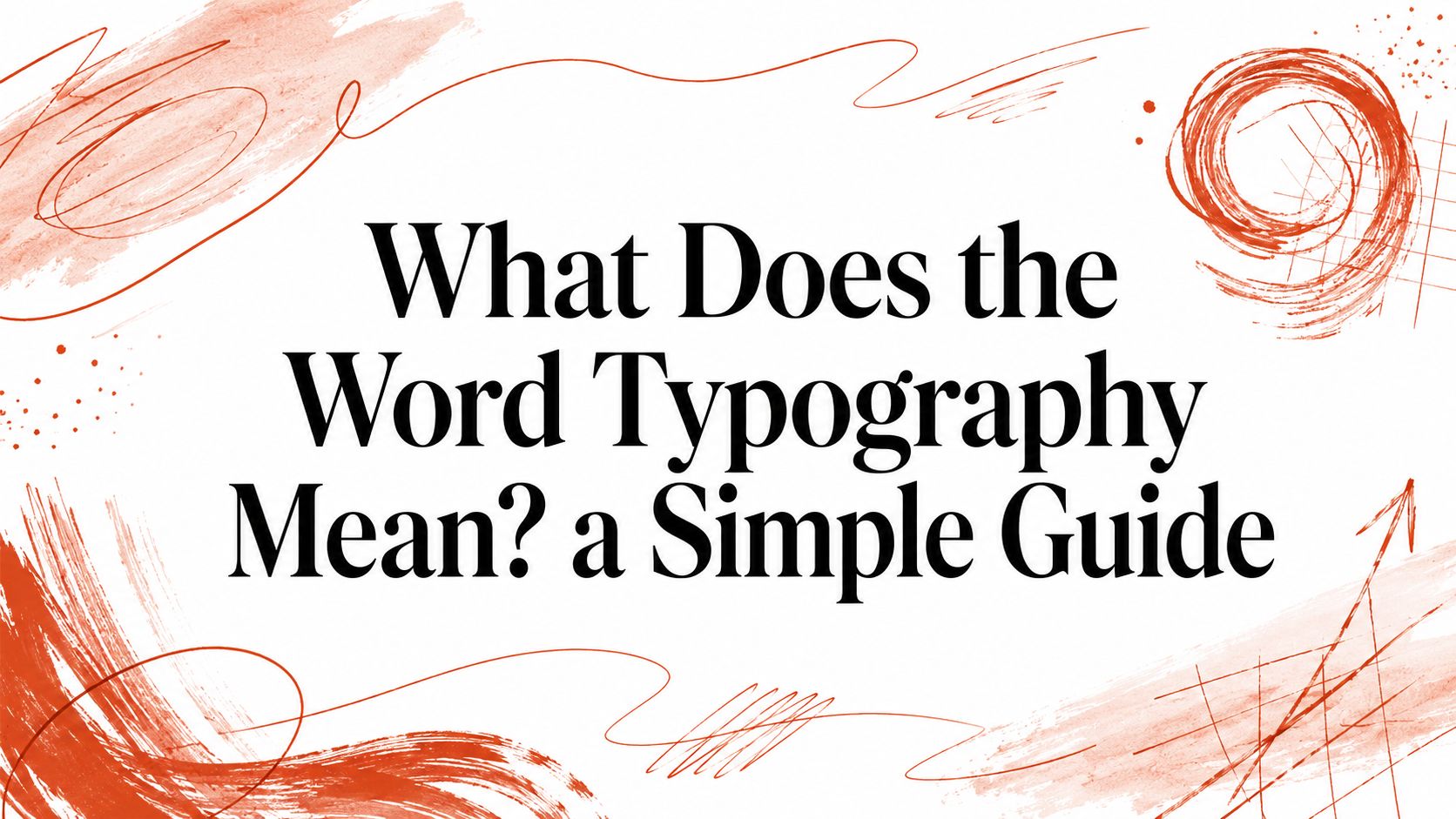
Typography is the art and technique of arranging type to make written language legible, readable, and visually engaging, covering everything from letterform selection to full-page composition. In 2026, that definition applies as much to websites, apps, and brand systems as it once did to letterpress.
So what does the word typography mean when a design team discusses a typeface, a CSS rule, a mobile interface, or a font license? The answer is broader than “choosing attractive letters.” Typography is a system of decisions about how written language looks, behaves, and reaches readers. It connects visual form with reading effort, brand expression, technical delivery, accessibility, and legal permission.
That broader meaning can create confusion. A designer may use “font” and “typeface” interchangeably, a developer may treat typography as a collection of CSS properties, and a compliance lead may focus on whether a file can legally appear on a public website. Each person is looking at one part of the same discipline.
The Short Answer and Where the Word Comes From
The direct answer is simple: typography is the art and process of designing, selecting, arranging, and printing or displaying type. It includes the appearance of letterforms, the spaces between them, the organization of lines and paragraphs, and the composition of text across a page or screen. Britannica's definition of typography describes the field as involving both letterform selection and the arrangement of type into words, sentences, and page blocks.
The word itself has an older and more physical history. Typography comes from Greek roots, typos, meaning “impression,” “mark,” or “figure,” and -graphia, meaning “writing.” In English, the term is attested from the 1640s for the art of composing types and printing from them, and by the 1690s it referred to the action or process of printing from types. The word's etymology shows that typography first named a printing practice before expanding into the design discipline used today.
That history explains why dictionaries can sound narrower than contemporary design conversations. In its earliest English use, typography concerned the mechanics of arranging physical type and producing printed matter. Today, the same idea includes the visual structure of a website, the behavior of text in an app, a brand's type hierarchy, and the way a browser loads a font through CSS @font-face.
Why the meaning expanded
Typography grew as the medium of written communication changed. Ink and paper required decisions about metal sorts, ink, margins, and page composition. Screens added responsive sizing, rendering behavior, fallback systems, loading states, and device variation.
The term also widened because typography affects more than decoration. Typeface choice, spacing, line length, contrast, and layout can influence legibility and the effort required to process text, as the evidence summarized by Britannica's typography overview makes clear. A typography decision can therefore belong to a visual designer, an interface engineer, an accessibility reviewer, and a licensing specialist at the same time.
A useful working definition is this: typography is the complete system that turns written language into a readable and intentional visual experience. The system begins with letterforms, then extends through metrics, composition, digital implementation, accessibility checks, and permission to use the underlying files.
What Typography Actually Includes Beyond the Dictionary
A dictionary definition gives you the category. A working team needs the inventory. Typography includes the visible type resource and the rules that control how that resource behaves in a composition or interface.
Start with the typeface. A typeface is the designed visual system of characters, including their proportions, stroke treatment, terminals, spacing logic, and overall personality. A font is the usable file or instance that delivers those characters in a particular style, weight, or format. A helpful analogy is that the typeface is a blueprint, while the font is a finished brick made from that blueprint.
That distinction matters in design hand-offs and licensing conversations. A designer may specify a family and weight, while an engineer implements a particular file, and a compliance lead verifies whether that file can be embedded, served, or redistributed. Typography is the arrangement system that uses the resource. It isn't only the resource itself.
The visible design system
A complete typographic system may include:
- Families and styles: Serif, sans-serif, monospace, script, and display families create different visual and functional possibilities.
- Weights and widths: Light, regular, medium, bold, black, condensed, and expanded styles establish emphasis and density.
- Sizing rules: A scale defines how body copy, labels, captions, headings, and display text relate to one another.